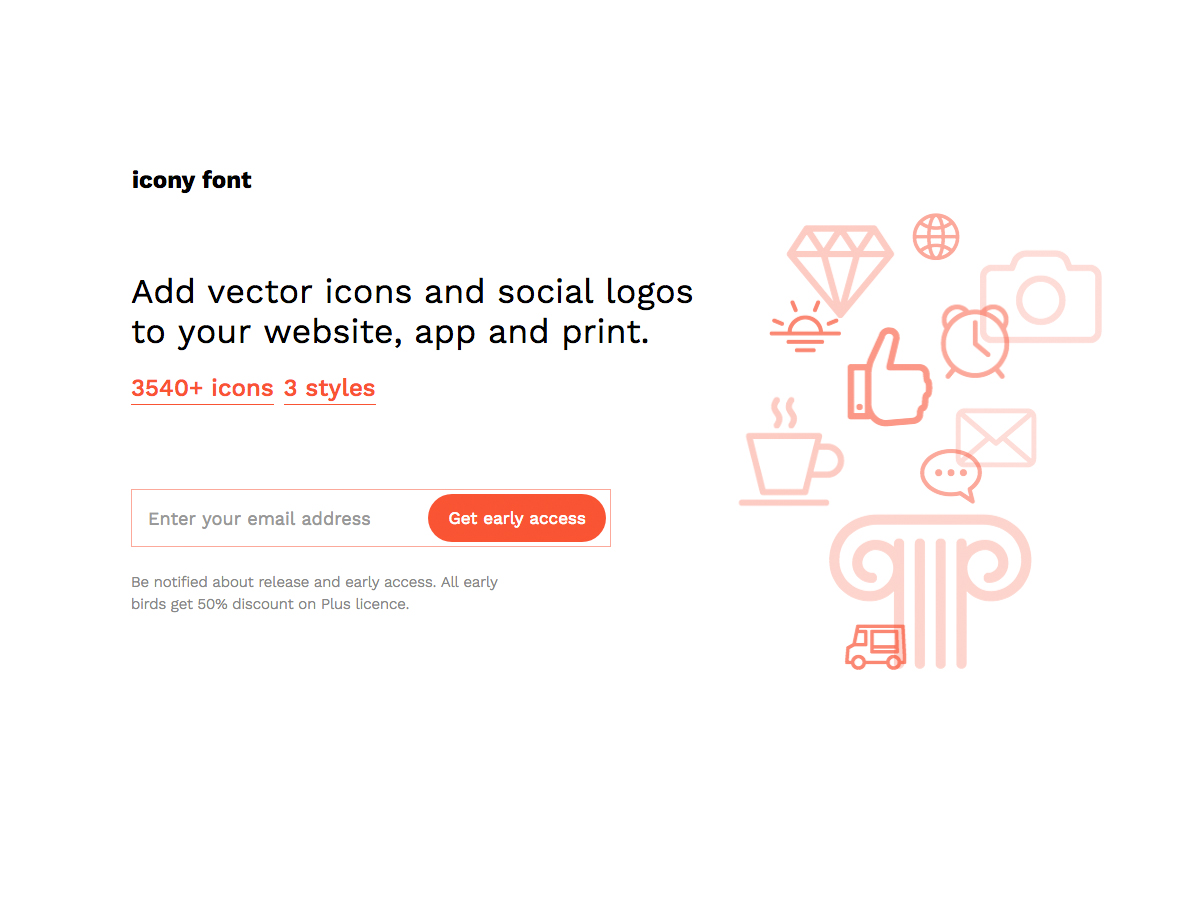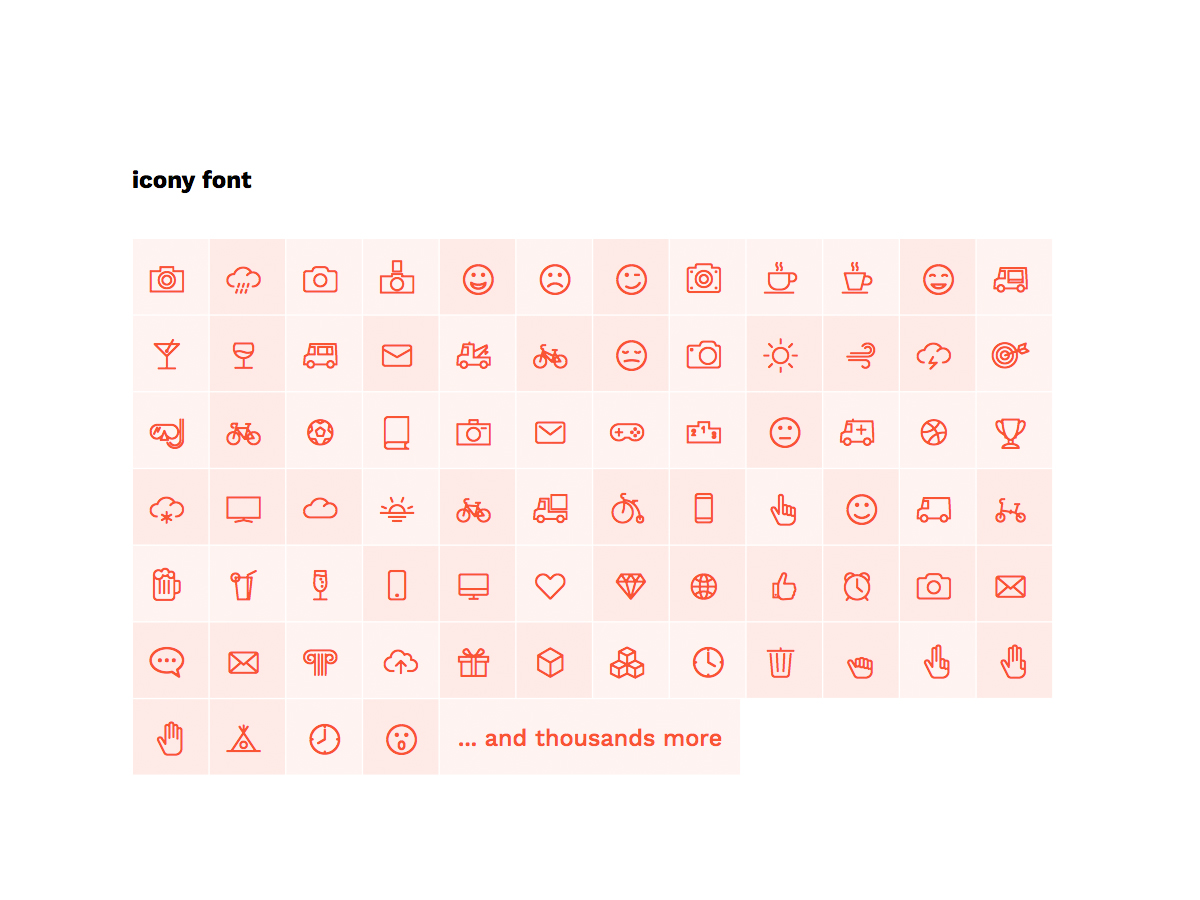
icony font
Add vector icons and social logos to your website, app and print.
Feel free to use icony font anywhere. You get all the icons you need for creating impressive websites, applications and prints. Icony is a fresh and versatile font family for designers and developers. Comes in 3 styles: Light, Regular and Solid.